Giambattista Bodoni cut the original typeface bearing his name in the late 18th century, pushing stroke contrast to an extreme that had barely been attempted before — hairline-thin serifs against dramatically thick stems, a look that reads as instantly glamorous and has made Bodoni-style serifs the default typographic shorthand for fashion and luxury ever since (Vogue’s masthead has run on Bodoni-derived lettering for decades). Licensing a proper digital revival today runs $29.99 for a single style, with full families costing considerably more. These five Google Fonts borrow the same high-contrast editorial drama for free. If you’ve been searching for free alternatives to bodoni, this list is built exactly for that.
Playfair Display
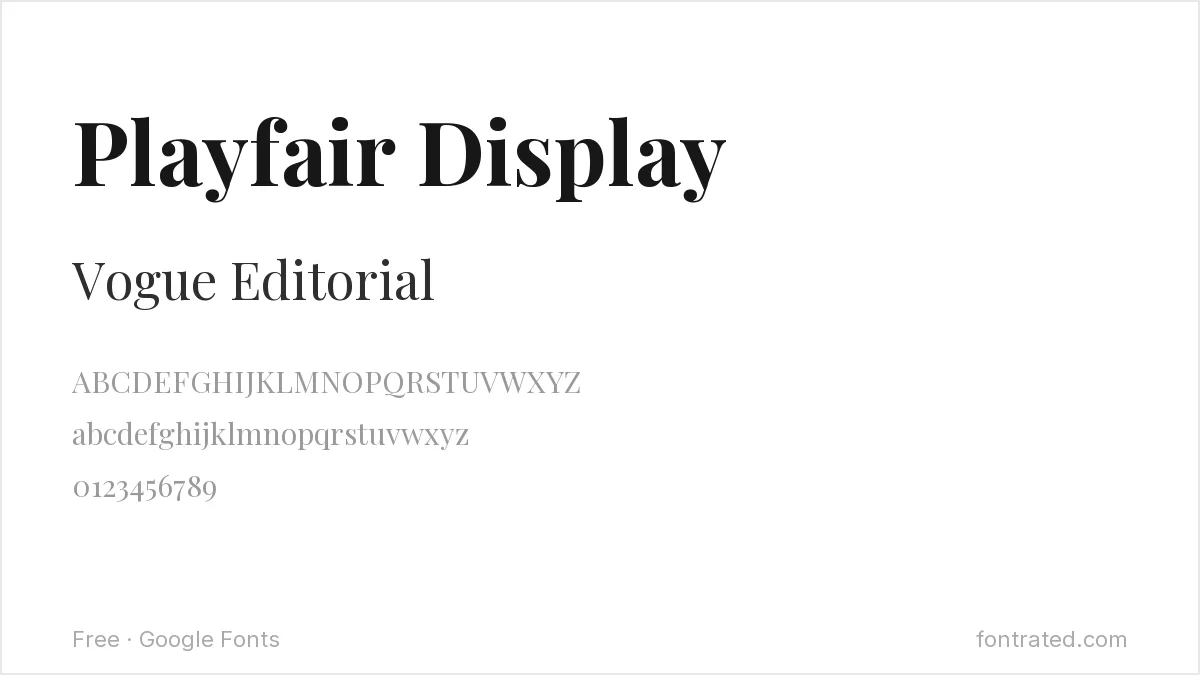
Drawing on Baskerville and Didot as much as Bodoni, Playfair Display’s thin hairlines against thick stems land closest to Bodoni’s own dramatic contrast of anything on Google Fonts.
Abril Fatface
An even more extreme take on high-contrast serif drama than Playfair Display, Abril Fatface pushes toward Bodoni’s boldest display cuts — best reserved for a headline rather than body text.
DM Serif Display
Generous, rounded curves with real editorial contrast, DM Serif Display works particularly well set large, in the spirit of a Bodoni-style magazine headline.
Cormorant
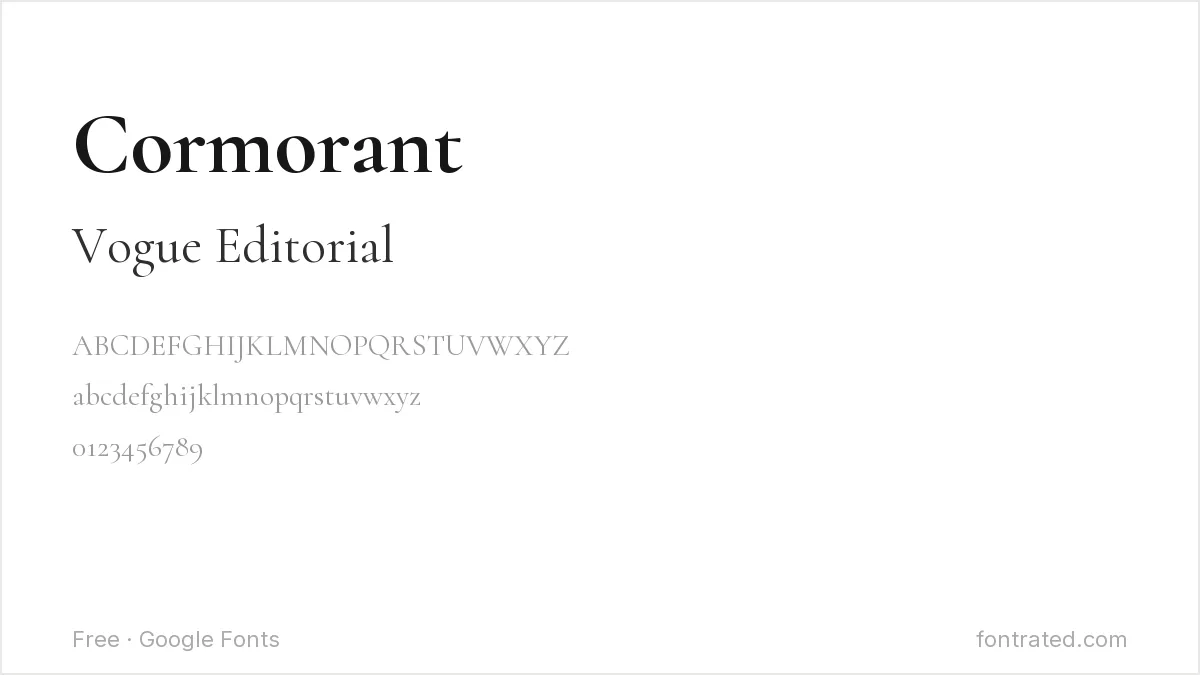
An extreme high-contrast serif with very fine hairlines, Cormorant shares Bodoni’s dramatic thin-thick contrast in a more restrained, literary register.
Italiana
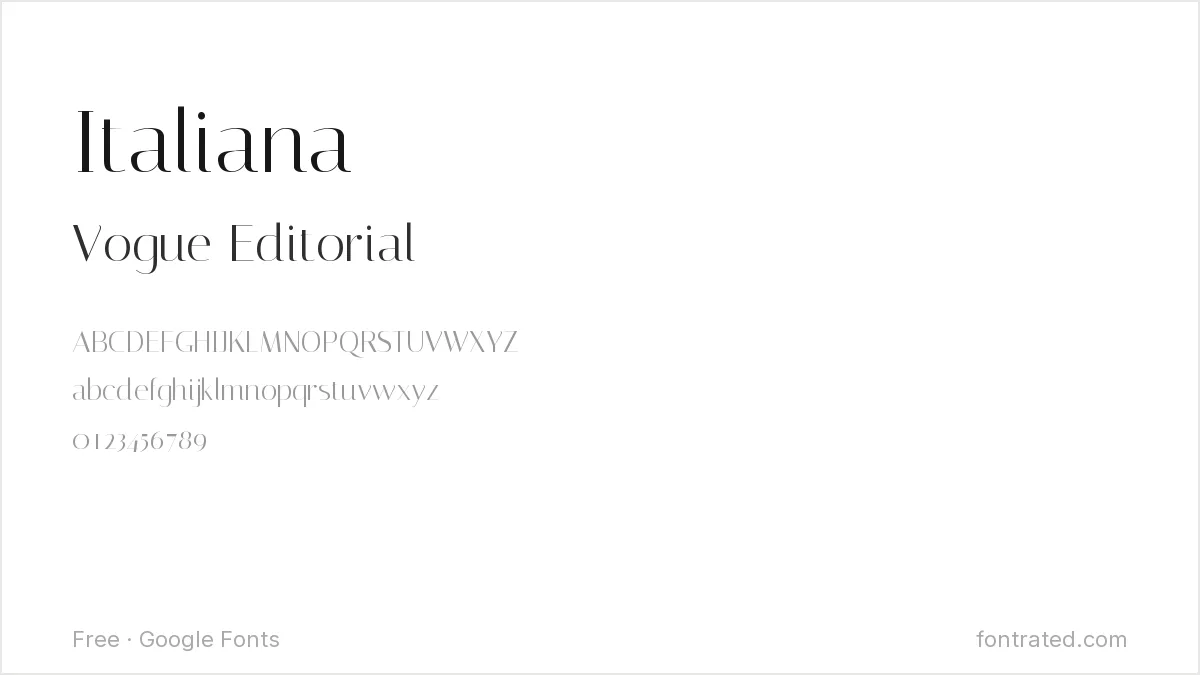
A high-contrast serif with an explicitly old-Italian-fashion-magazine character, Italiana leans directly into the same glamour Bodoni built its reputation on.
Quick Comparison
| Font | Style | Best For |
|---|---|---|
| Playfair Display | High-contrast display serif | Closest general match |
| Abril Fatface | Ultra-bold display serif | Maximum stroke contrast |
| DM Serif Display | Editorial display serif | Large-format headlines |
| Cormorant | Delicate display serif | Refined, editorial titles |
| Italiana | Refined editorial serif | Old-fashion-magazine feel |
Frequently Asked Questions
Why is Bodoni so associated with fashion and luxury branding?
Its extreme stroke contrast reads as glamorous and editorial in a way lower-contrast serifs don’t — fashion magazines have leaned on Bodoni-style lettering for their mastheads for so long that the association has become nearly automatic.
Will a high-contrast font like Cormorant or Abril Fatface still be legible at small sizes?
Not reliably — the thin hairlines that create the dramatic contrast tend to disappear at small text sizes. Reserve these for headlines and titles, and use a plainer serif for body text.